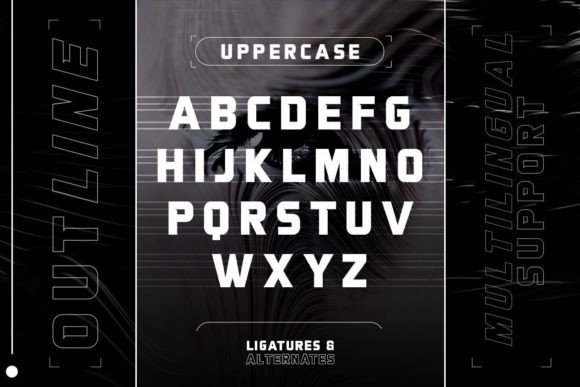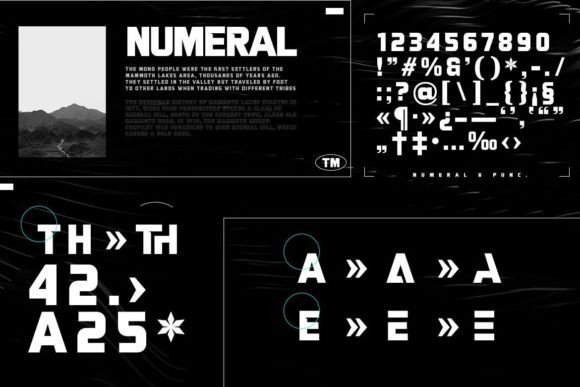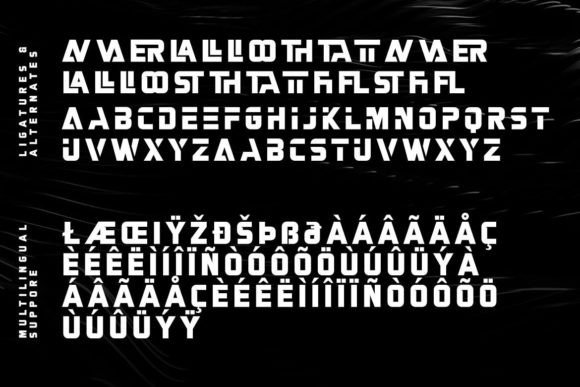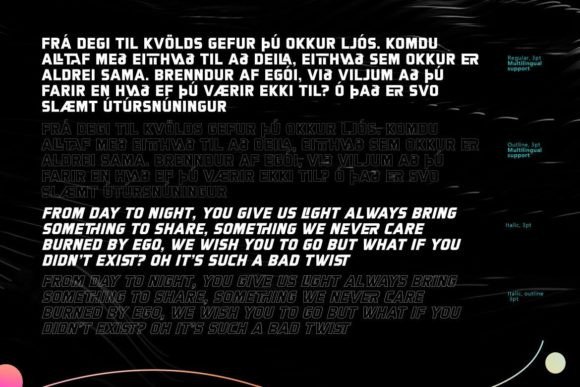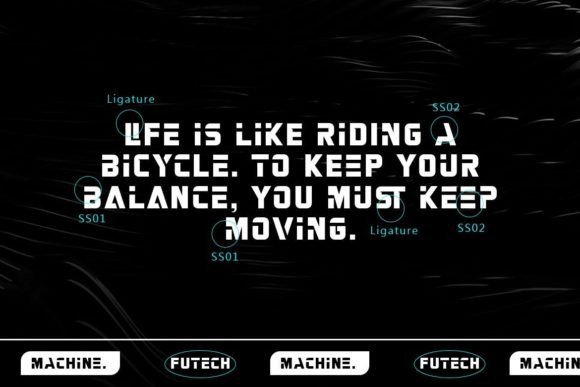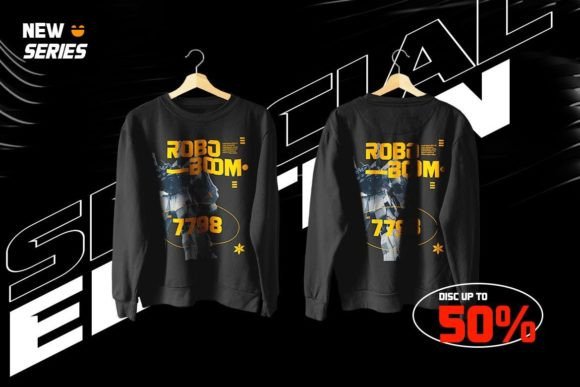
Introducing Eleven Fit Font: The Ultimate Choice for Fitness and Sports Design
Are you a designer, crafty enthusiast, or a fitness enthusiast looking for the perfect font to convey powerful messages and creative ideas related to the gym, working out, competitions, or similar themes? Look no further than the Eleven Fit Font! This sporty and chunky sans serif font is specifically designed to help you create stunning visual content that stands out from the crowd.
What Makes Eleven Fit Font So Special?
Eleven Fit Font is more than just a font – it’s a tool that can help you elevate your design game and communicate your message with confidence. Here are some of its key features:
- Sporty and Chunky Design: Eleven Fit Font boasts a bold and athletic design that’s perfect for creating eye-catching headlines, titles, and slogans for fitness-related projects.
- PUA Encoding: This font is PUA (Private Use Area) encoded, which means you can easily access all the glyphs and swashes without any hassle. This feature makes it incredibly easy to use and customize.
- Versatility: Whether you’re designing a poster for a gym, creating a logo for a sports brand, or crafting a social media post for a fitness enthusiast, Eleven Fit Font is the perfect choice.
Why Designers and Crafters Love Eleven Fit Font
Designers and crafters love Eleven Fit Font for its flexibility and creative possibilities. Here are some reasons why:
- Ease of Use: The font’s PUA encoding makes it easy to access and use, even for those who are new to font design.
- Customization: With Eleven Fit Font, you can easily customize your design with the font’s built-in glyphs and swashes.
- High-Quality Design: The font is designed with high-quality and clarity in mind, making it perfect for both print and digital designs.
How to Use Eleven Fit Font in Your Designs
Using Eleven Fit Font in your designs is easy! Here are some tips to get you started:
- Pair it with Other Fonts: Eleven Fit Font pairs well with other sans serif fonts, making it easy to create a cohesive look.
- Experiment with Colors: The font’s bold design makes it perfect for use with bright and bold colors.
- Play with Glyphs and Swashes: Use the font’s built-in glyphs and swashes to add a personal touch to your design.
Who Can Benefit from Eleven Fit Font?
Eleven Fit Font is perfect for anyone who needs to create designs related to fitness, sports, and working out. Here are some examples:
- Graphic Designers: Add Eleven Fit Font to your font library and use it to create stunning designs for clients in the fitness industry.
- Crafty Enthusiasts: Use Eleven Fit Font to create custom designs for your fitness-themed crafts, such as iron-on designs or stickers.
- Marketing Agencies: Use Eleven Fit Font to create eye-catching campaigns for fitness brands and gyms.
In conclusion, Eleven Fit Font is a powerful tool that can help designers, crafters, and fitness enthusiasts create stunning visual content. With its sporty and chunky design, PUA encoding, and versatility, this font is perfect for anyone who needs to convey powerful messages and creative ideas related to fitness and sports.